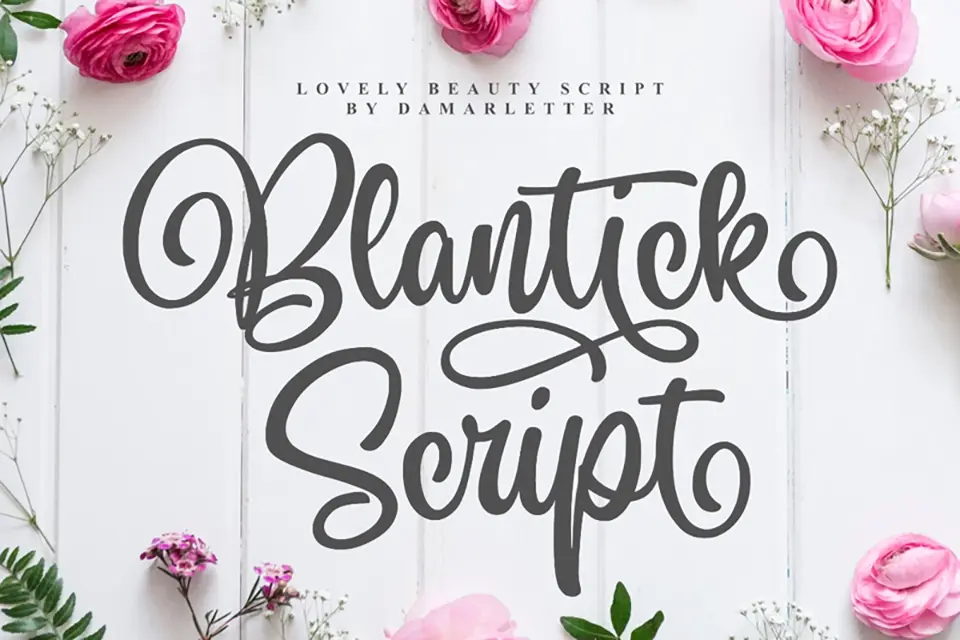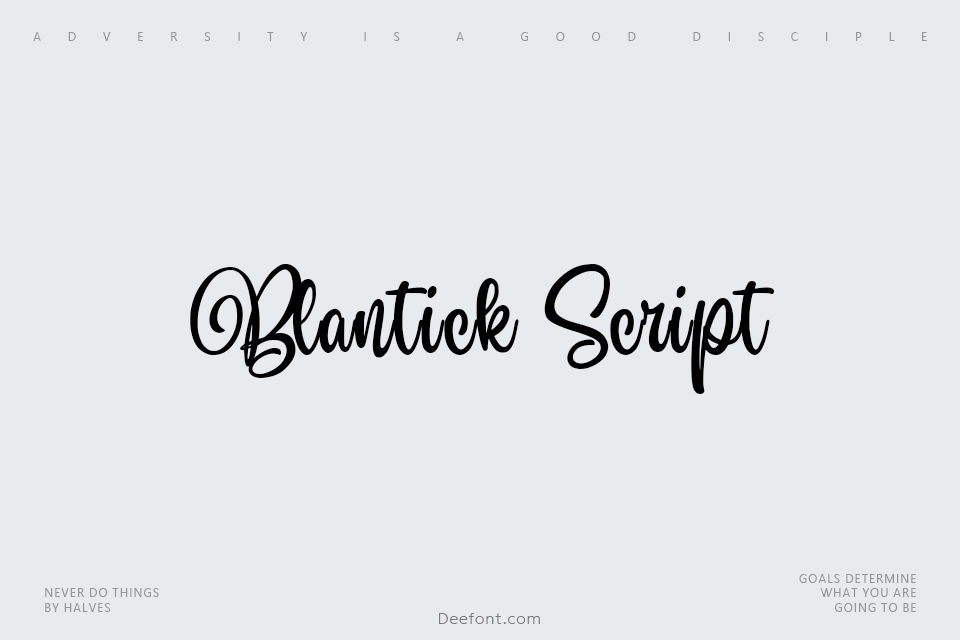
Blantick Script Font
Blantick Script is a lovely fashionable curly calligraphy font designed to closely resemble natural handwritten script. Created with 12 standard ligatures and stylistic sets, this elegant typeface features more than 300 glyphs and excellent multilingual support. Perfect for branding, logo design, wedding invitations, social media content, product packaging, and creative labeling. The font works seamlessly across all major design platforms including Adobe Illustrator, Photoshop, InDesign, and Microsoft Word.